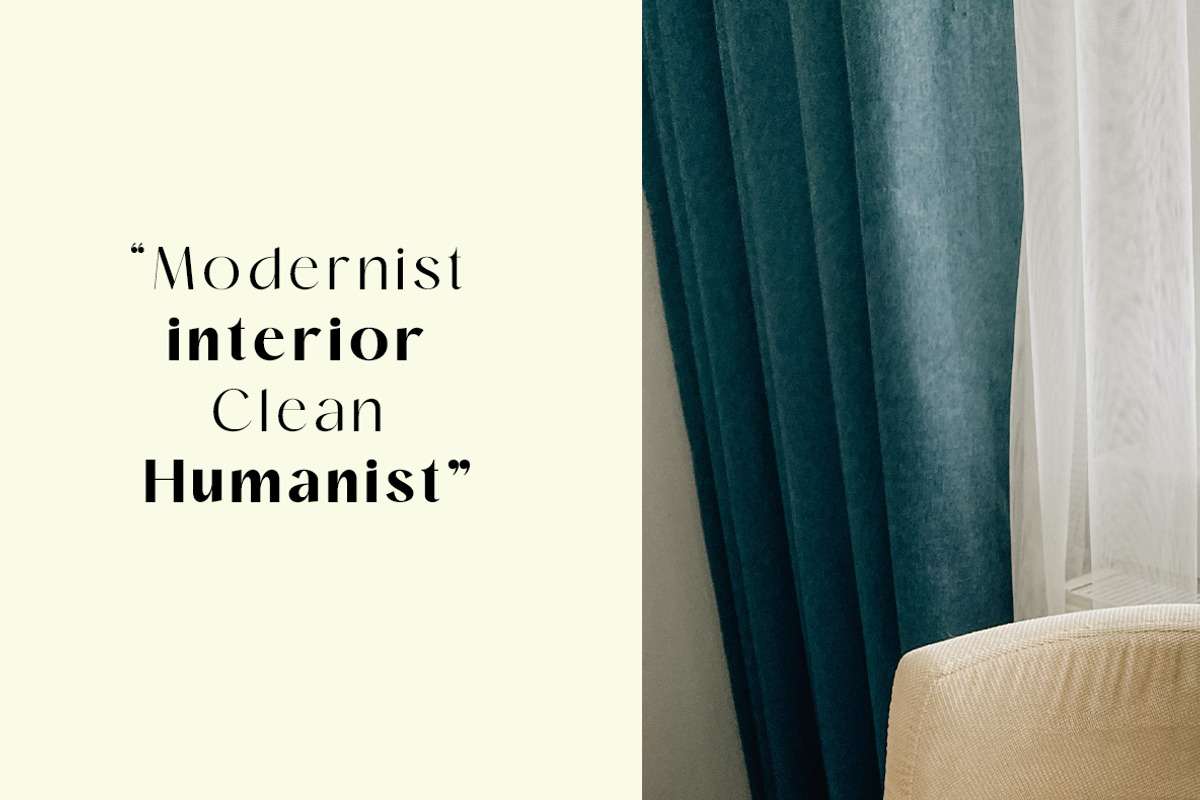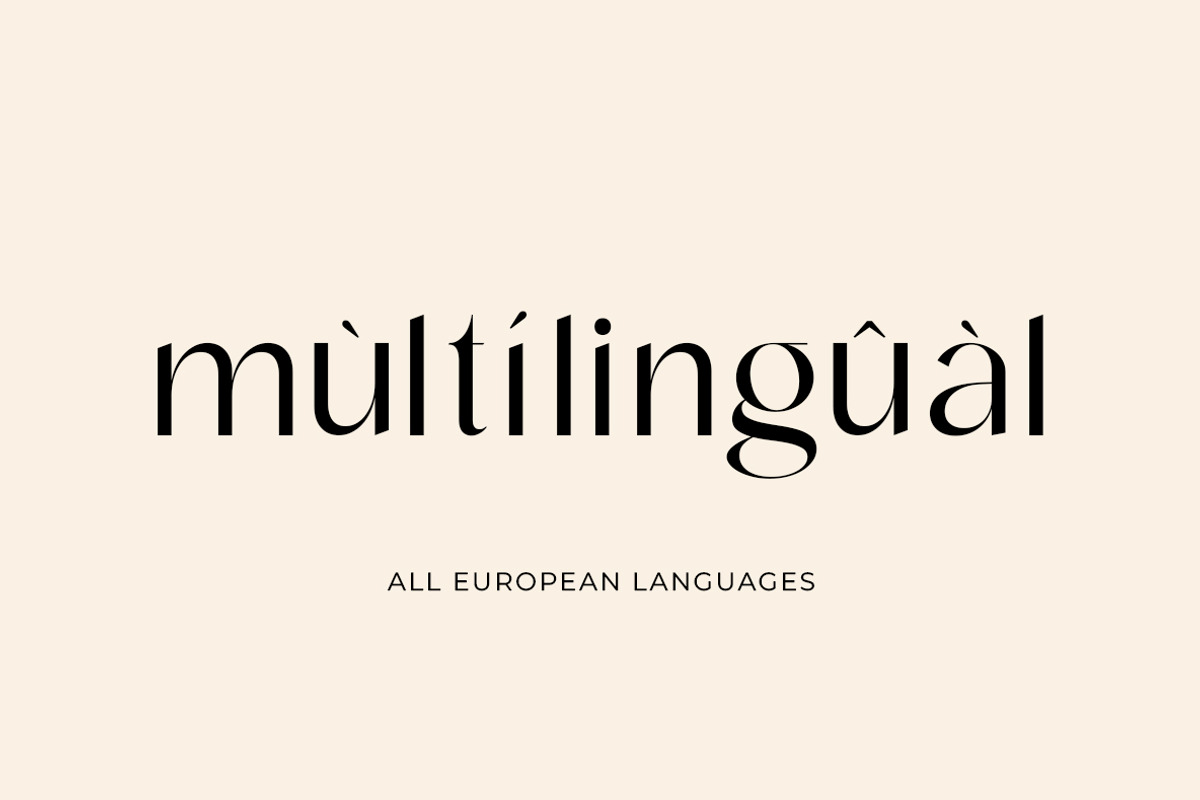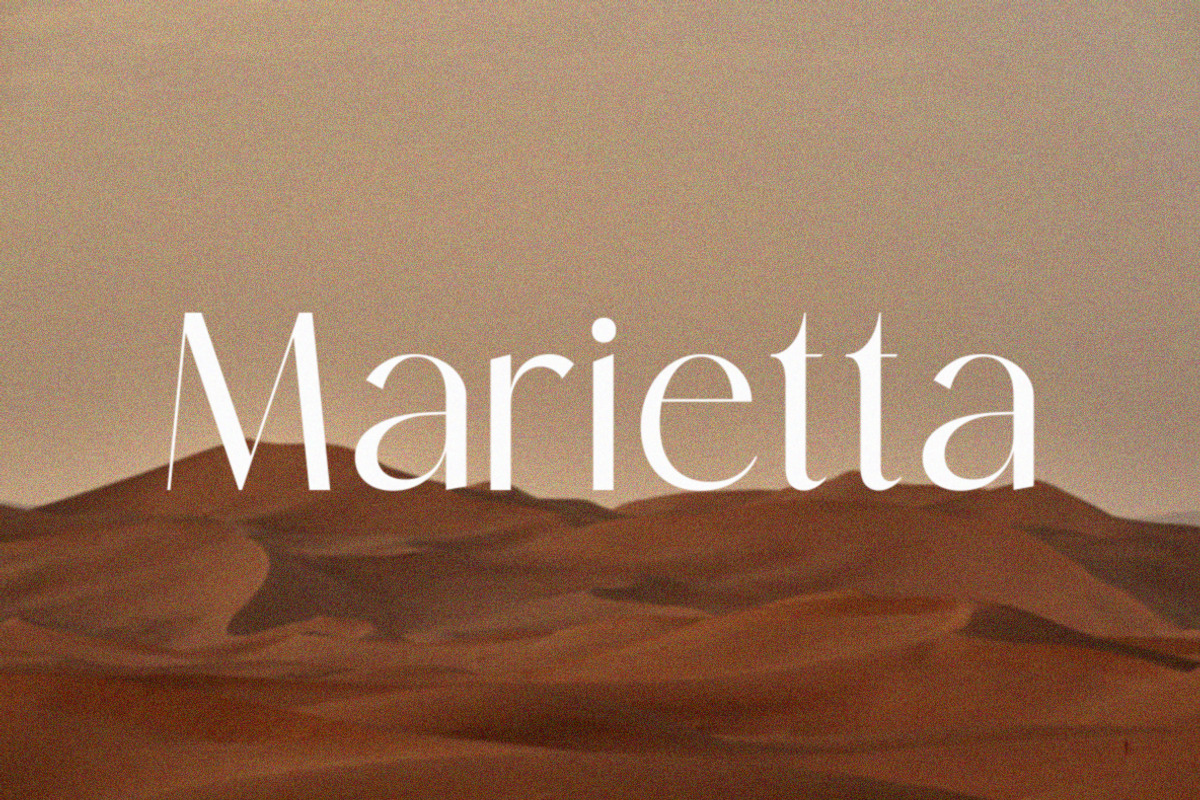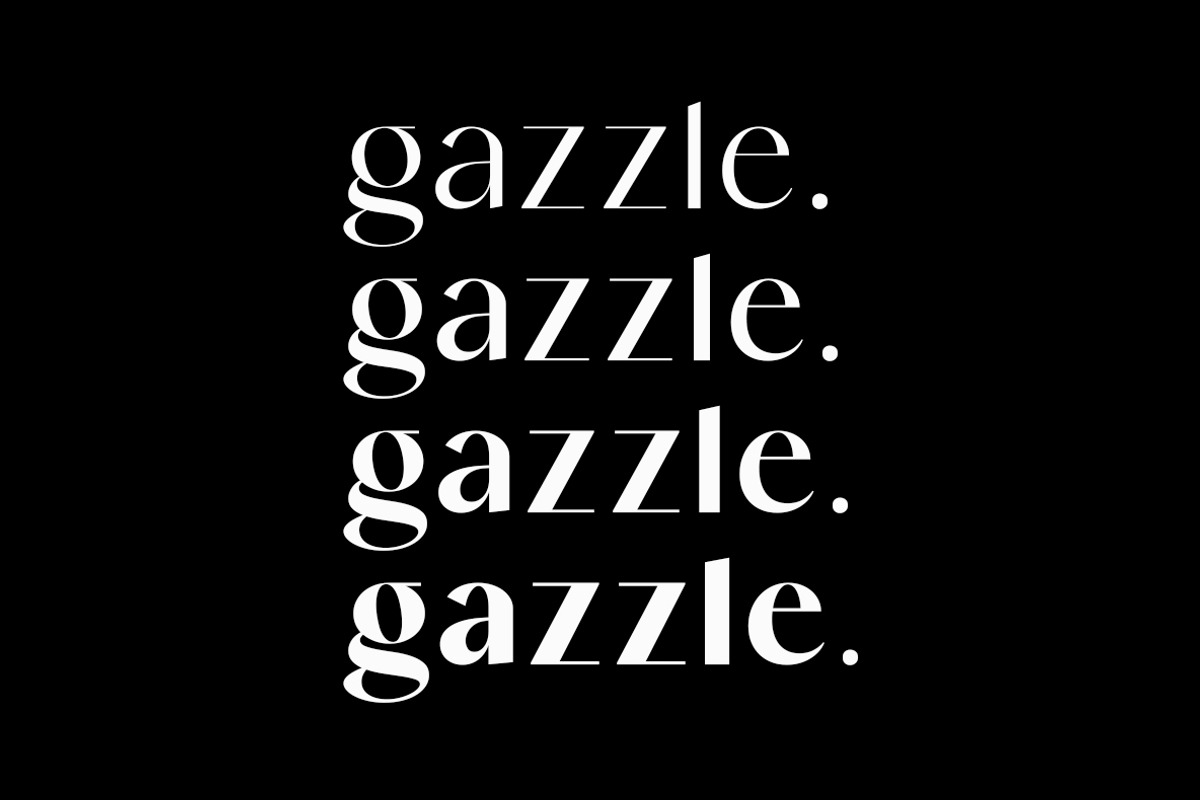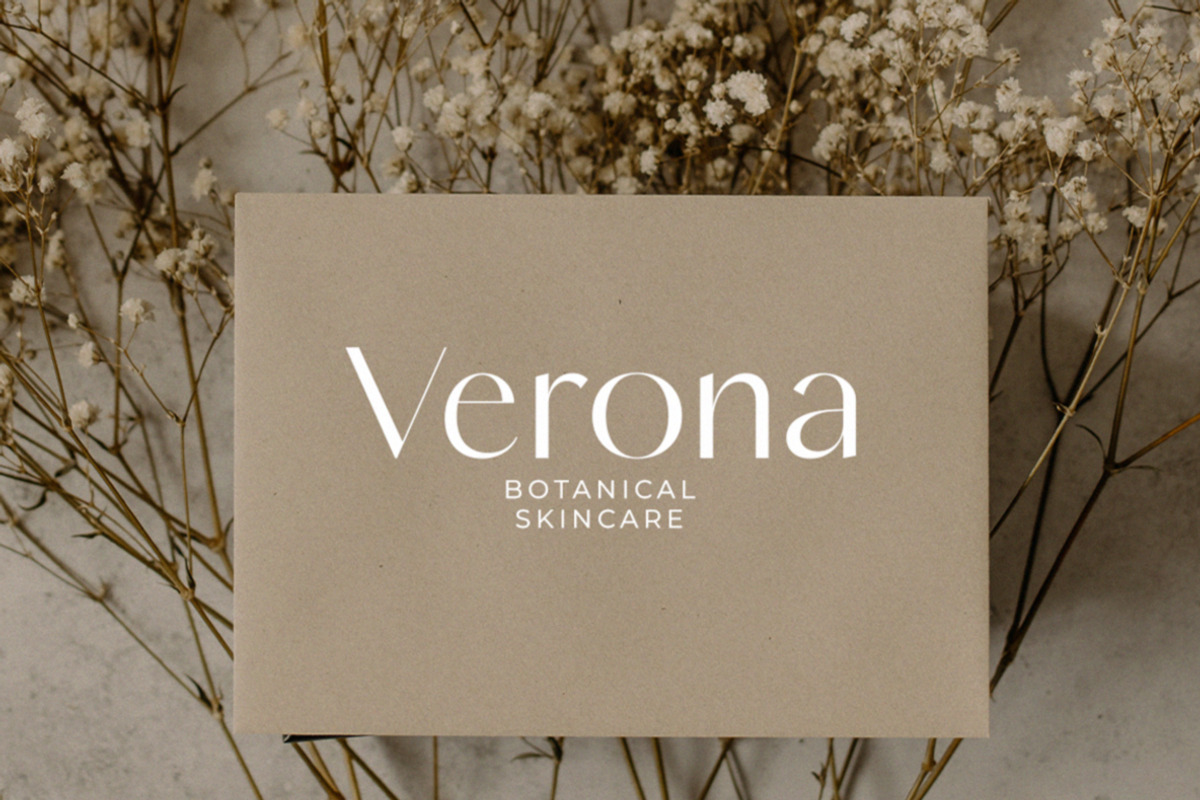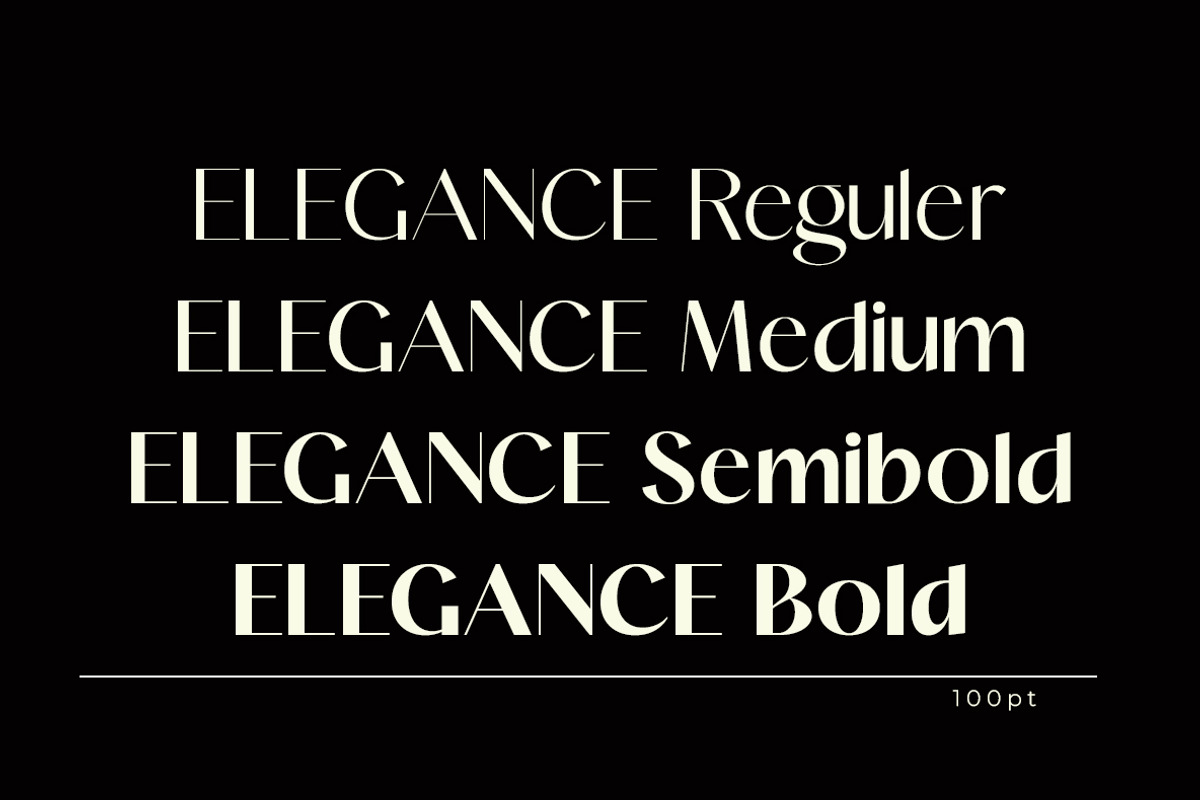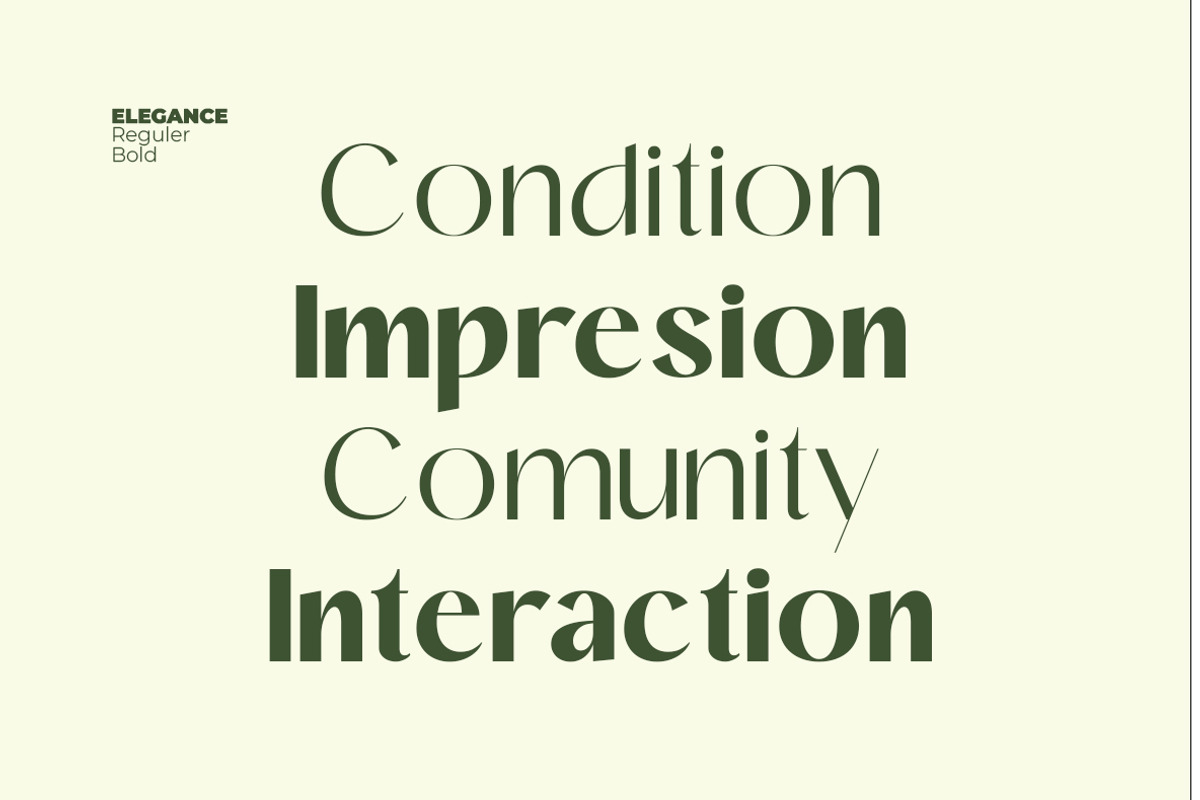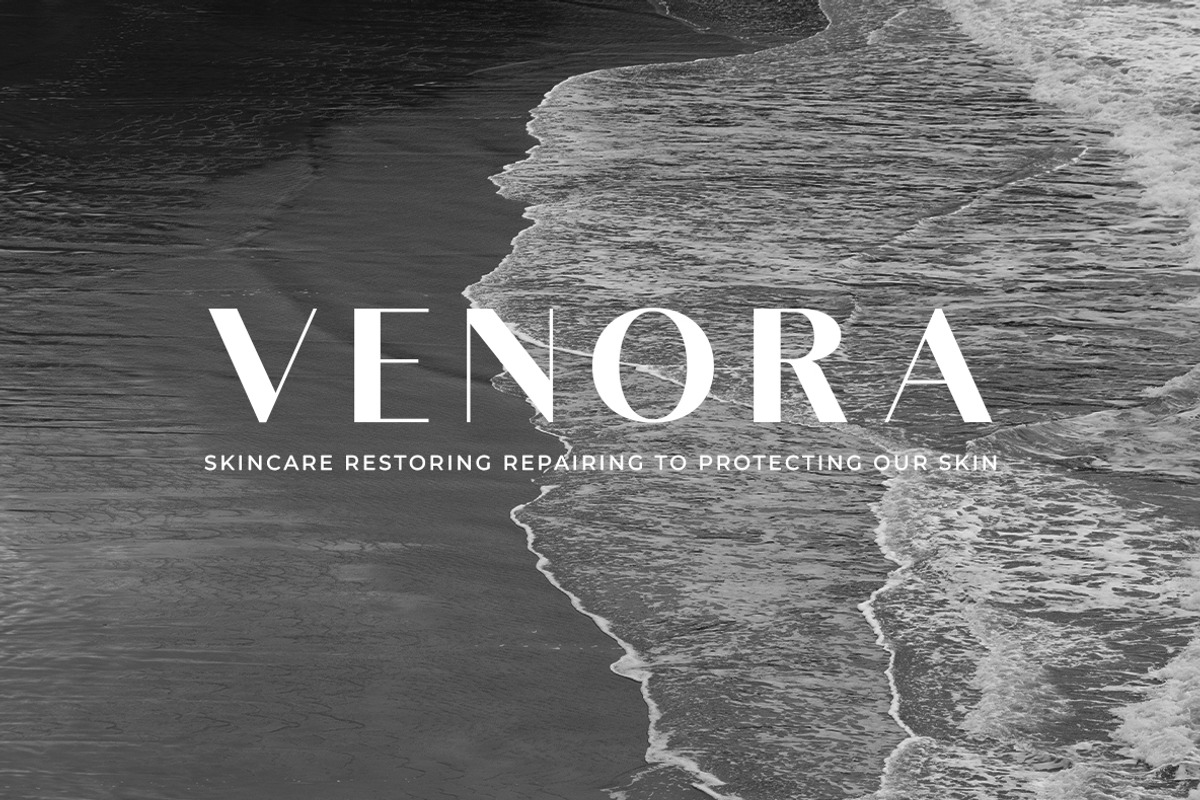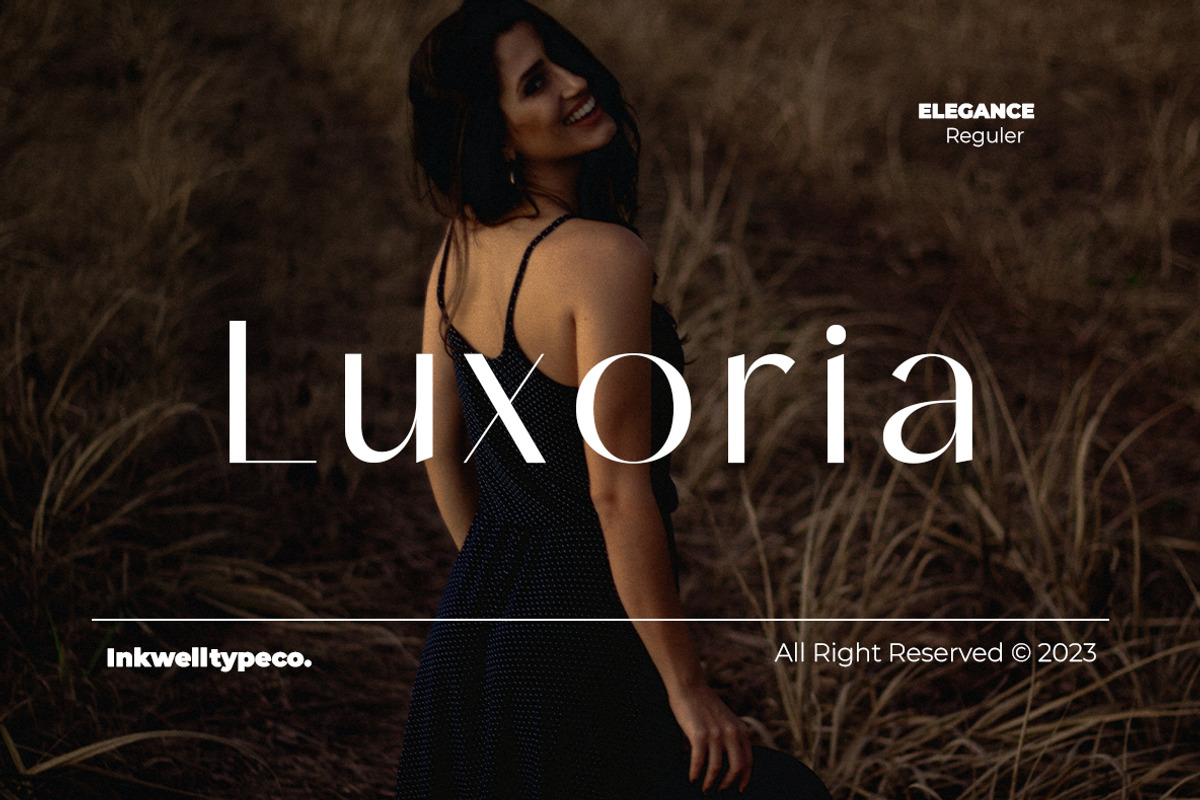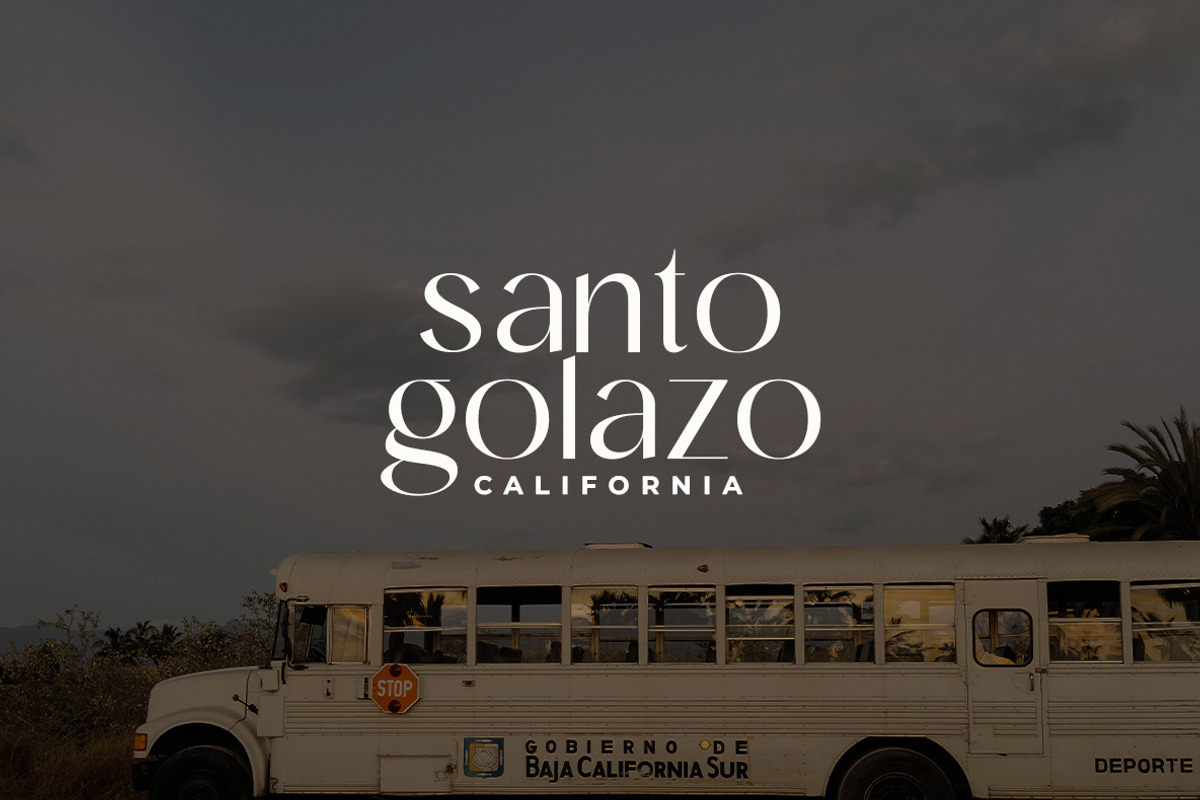
ELEGANCE | Sans Family
ELEGANCE is a new basic casual sans serif font family. will perfect for many project: fashion, magazines, logo, branding, photography, invitations, wedding invitation, quotes, blog header, poster, advertisements, postcard, book, websites.